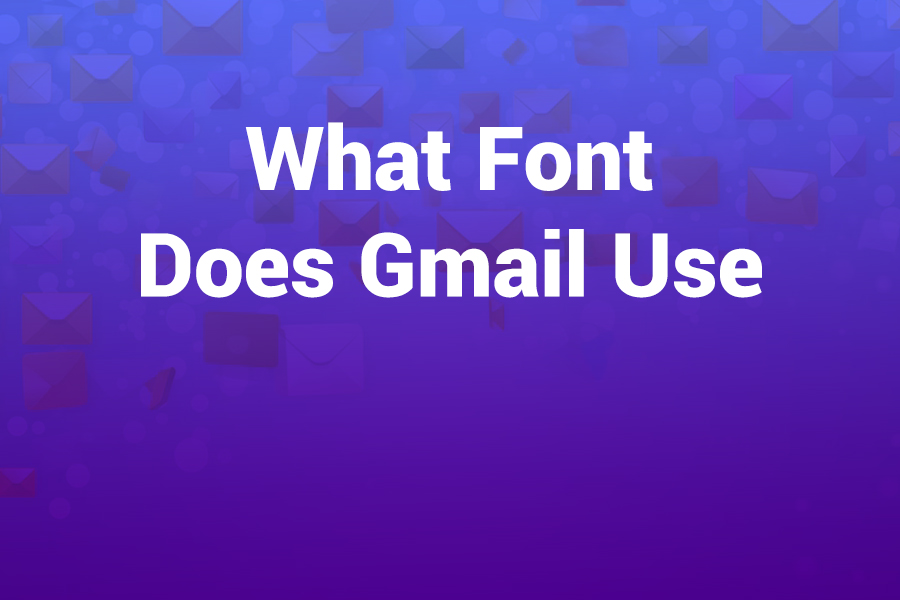
Google’s Gmail is one of the most used email platforms in the U.S. and globally. You might wonder: what font does Gmail use? Whether you spot it in your inbox, write a message, or just peek into the interface, typography plays a key role in readability and brand feel.
Gmail’s Default Font: What It Is
When you open Gmail on desktop or mobile and view the interface (menus, labels, buttons), you’re usually seeing a sans-serif style. Historically, Gmail used Arial as its default interface font — when the system font setting was simply “sans-serif.” In many cases, the email body also defaults to Arial when you compose a new message by default.
However, Google has been gradually shifting fonts. Reports show that Gmail’s interface font is expected to change from Arial to Product Sans, Google’s proprietary brand typeface. Simultaneously, the default font for email bodies is expected to move to Roboto, a clean, modern sans-serif designed by Google.
Thus today, Gmail’s interface generally uses Arial (or the system sans-serif fallback), while Roboto is being introduced or used in parts as the default for message content.
Why Roboto & Product Sans Are the Picks
Roboto: Optimized for digital reading
Google designed Roboto to be highly legible on screens. It’s open source, well-hinted for crisp display on pixel-based devices, and supports many weights and styles. Because Gmail is accessed across mobile, tablet, and desktop, a font like Roboto ensures consistency. Roboto has become the default on Android and in many Google services for this reason.
Product Sans: Brand consistency
Product Sans is Google’s branding typeface introduced in 2015. Using it in the Gmail interface aligns the product visually with Google’s identity. Its geometric style and friendly curves give a modern yet simple voice to UI elements.
Fallback logic
Even when Gmail specifies a font like Roboto or Product Sans, your system might not have it installed. In those cases, Gmail and the rendering engine fall back to generic “sans-serif” or to widely available fonts like Arial or Helvetica.
Comparisons & Myths
Gmail uses “Sans Serif” only
In Gmail’s settings, the font dropdown often shows generic “Sans Serif.” That doesn’t tell you the exact font — just a font family. Under the hood, it gets mapped to Arial, Roboto, or the browser’s default sans-serif engine.
Gmail supports web fonts
Gmail generally doesn’t support embedding arbitrary web fonts like you would on websites. It supports a limited set (Open Sans, Roboto) if you purposely include them and they are accepted. But in most cases, those fonts won’t render as intended and the fallback takes over.
The Gmail logo uses Catull BQ
Yes — for its logo, Gmail uses Catull BQ Regular for the capital “G,” a serif typeface. That’s purely for branding and not part of the UI or message text.
How Font Rendering Works in Gmail
When Gmail renders text (menus, labels, message body), it follows a font stack: a list of font names in order of preference. For example:
font-family: “Product Sans”, “Roboto”, Arial, sans-serif
The browser picks the first available font in the list. If Product Sans isn’t available, it goes to Roboto, then Arial, then generic sans-serif.
When you compose a message, Gmail applies its “default text style.” In settings you can change that default. That only affects new messages you compose — received emails or those whose sender has forced a font will still display as sent.
How to Change the Default Font in Gmail
You don’t have to be stuck with whatever Gmail gives you. You can customize your default font, size, and color. Here’s how:
- Log in to Gmail on a desktop browser
- Click the gear icon (Settings) → “See all settings”
- In the General tab, scroll to Default text style
- Use the dropdown to pick your font style (Sans Serif, Serif, Fixed Width)
- Change the font size and color if desired
- Scroll down and click Save Changes
Once you do that, every new email you compose inherits those settings by default.
Device Differences & Mobile Considerations
On mobile apps (iOS, Android), the rendering engine is different. Gmail apps often rely on system fonts or optimized mobile rendering. Because mobile devices come with their own font sets, Gmail may map to the system’s sans serif (for example, Roboto on Android). So what you see on mobile may differ slightly from desktop.
On newer devices, Google is pushing consistency: using Roboto across mobile UI and message content, aligning with Material Design.
Which Fonts Work Best for Email
Because Gmail might not support every custom font, designers and marketers often stick to email-safe fonts — those that render reliably across clients. Popular picks include:
- Arial
- Helvetica
- Georgia
- Verdana
- Times New Roman
Gmail is known to support Roboto and Open Sans to some degree for custom fonts, but fallback often kicks in. So when designing HTML email, include a fallback stack.
Recent Changes & Trends
Google is actively redesigning Gmail. Internal communications obtained by media suggest Gmail’s UI font will shift from Arial to Product Sans, and message default font from Arial to Roboto. That aligns Gmail with Google’s overall visual language.
As of the latest reports, the change is being rolled out or in internal testing. So your Gmail interface or email font may already be Roboto or Product Sans depending on your account and date of update.
Tips for Better Typography in Gmail
- Stick to sans-serif fonts for clarity on screens
- Use default settings for message body so recipients see consistent text
- Include fallback fonts in your HTML emails
- Test emails across Gmail, Outlook, Apple Mail to ensure no ugly fallback
- Avoid using unsupported custom or web fonts unless you know they’ll render
Quick Summary (in bullet form)
- Gmail interface currently often displays in Arial (sans-serif generic)
- Google is transitioning interface font to Product Sans
- Message default font is shifting to Roboto
- Gmail uses font stacks and fallback logic
- You can override the default font via Settings → Default Text Style
- Mobile versions use system fonts, often Roboto on Android
- Email-safe fonts remain essential for broad compatibility
Gmail’s font choices reflect a balance between readability, consistency, and brand identity. As Google evolves its design systems, expect even more integration of Roboto and Product Sans across your Gmail experience.